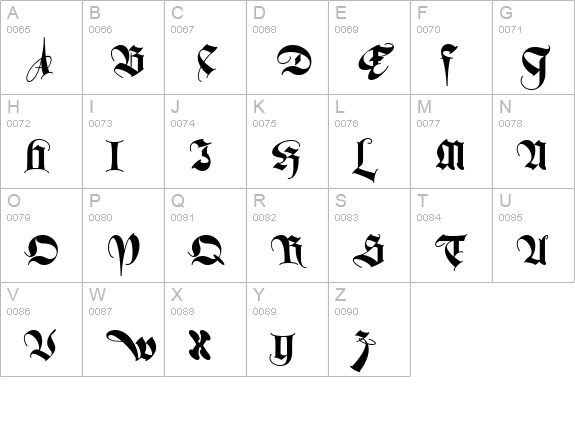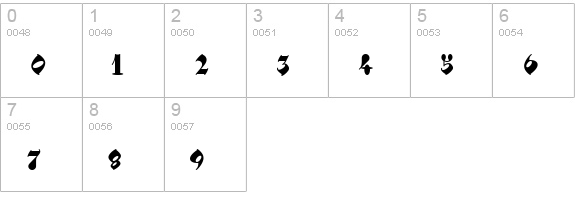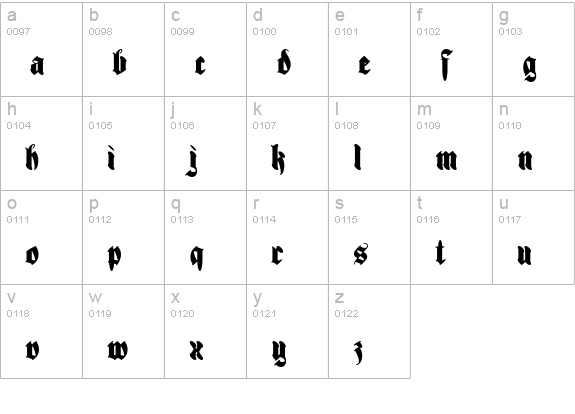
FeroxAlternates Font Details
FeroxAlternates is a bold and striking font that exudes strength and confidence. With its sharp edges and unique design, this font is perfect for making a bold statement in your designs. The alternate characters add an extra layer of creativity and versatility to your projects. Whether you're designing a poster, logo, or website, FeroxAlternates is sure to make a lasting impression. Best of all, FeroxAlternates is available for free download at FontsMarket.com. This means you can easily access this eye-catching font and incorporate it into your projects without any cost. Don't miss out on the opportunity to enhance your designs with the powerful and dynamic FeroxAlternates font. Download it today and let your creativity shine!